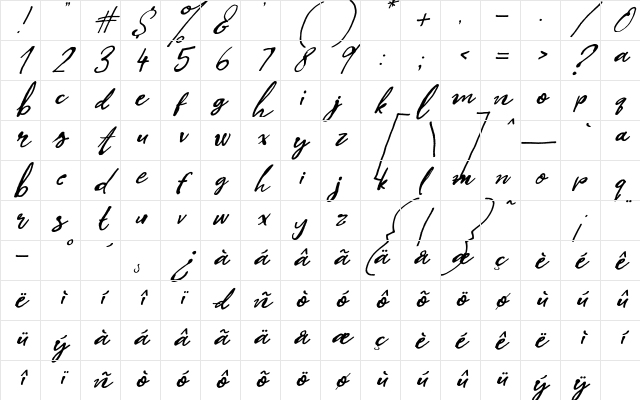
Travelling Abroad slant Regular
Travelling Abroad slant Family
Design Context for Travelling Abroad slant
Travelling Abroad slant is a composed and adaptable typeface that performs quietly and consistently across a wide range of design contexts.